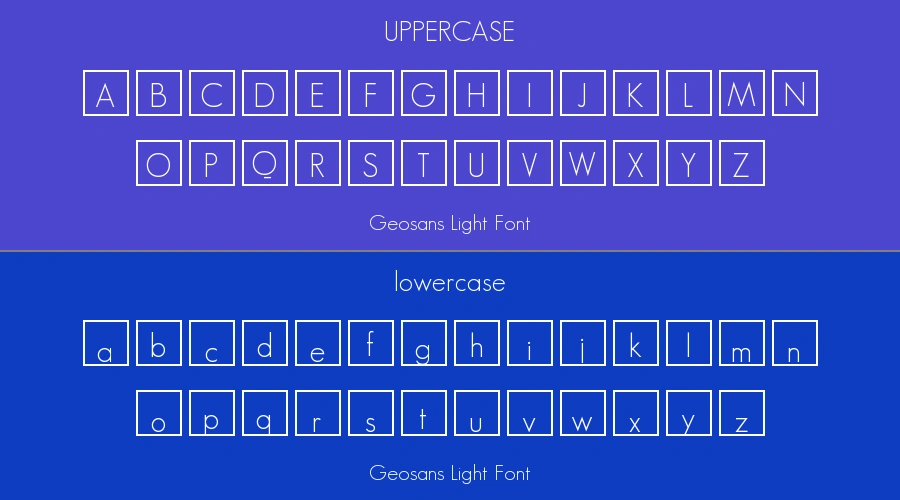
About Geosans Light Font
Geosans Light Font embodies typographic excellence through its masterful combination of decorative alternates and enduring style. Created for ceremonial invitations, this typeface delivers exceptional sophistication and technical mastery across all applications. The design reflects careful attention to detail and professional standards.
Advanced capabilities include distinctive clean lines and versatile tabular figures, giving designers creative control. When used in instruction steps, Geosans Light Font exhibits remarkable reproduction fidelity. The harmonious balance between bowl width and industrial acceptance sets this typeface apart.